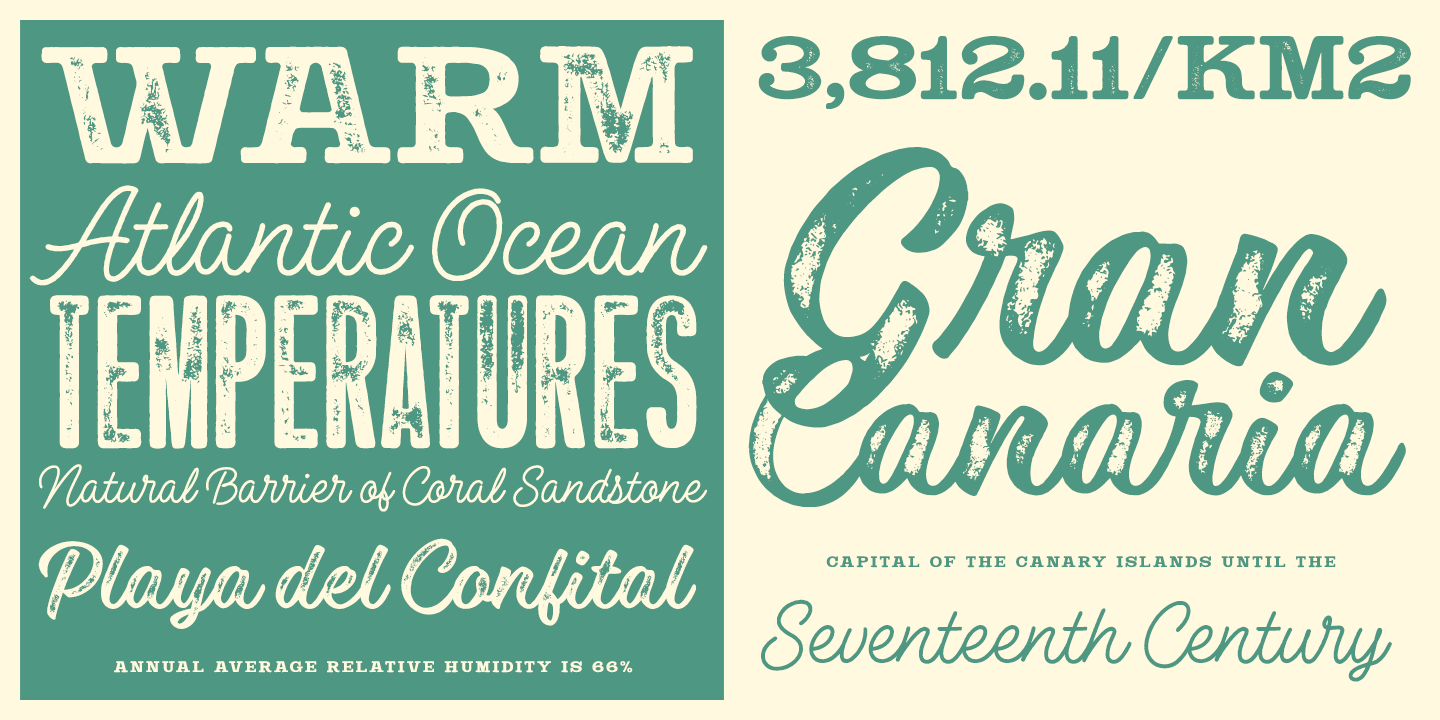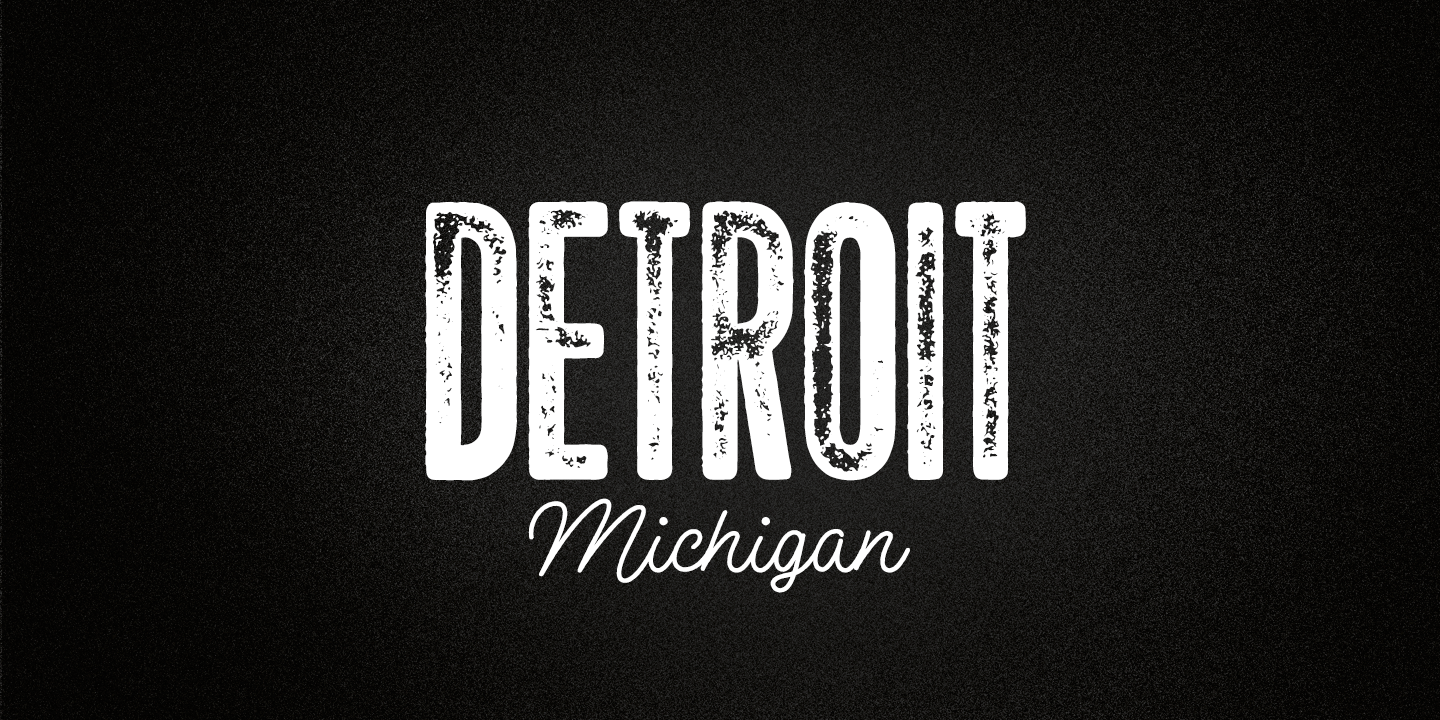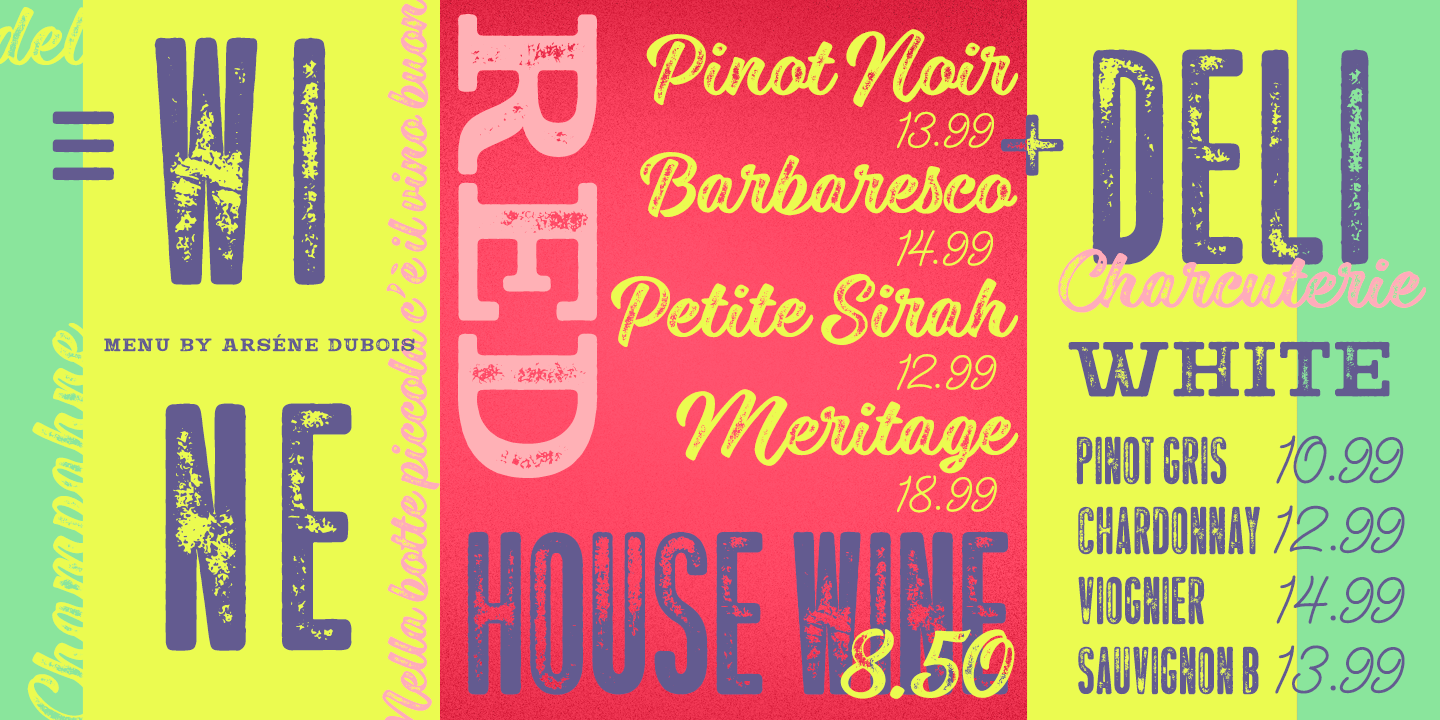
About Las Palmas
Las Palmas is a vintage type collection with print texture. Las ? Brush – Two weights of a connected Brush Script with Contextual and Swash Alternates ? Pen – A connected monoline Script with Contextual and Swash Alternates ? Slab – Two weights of a…